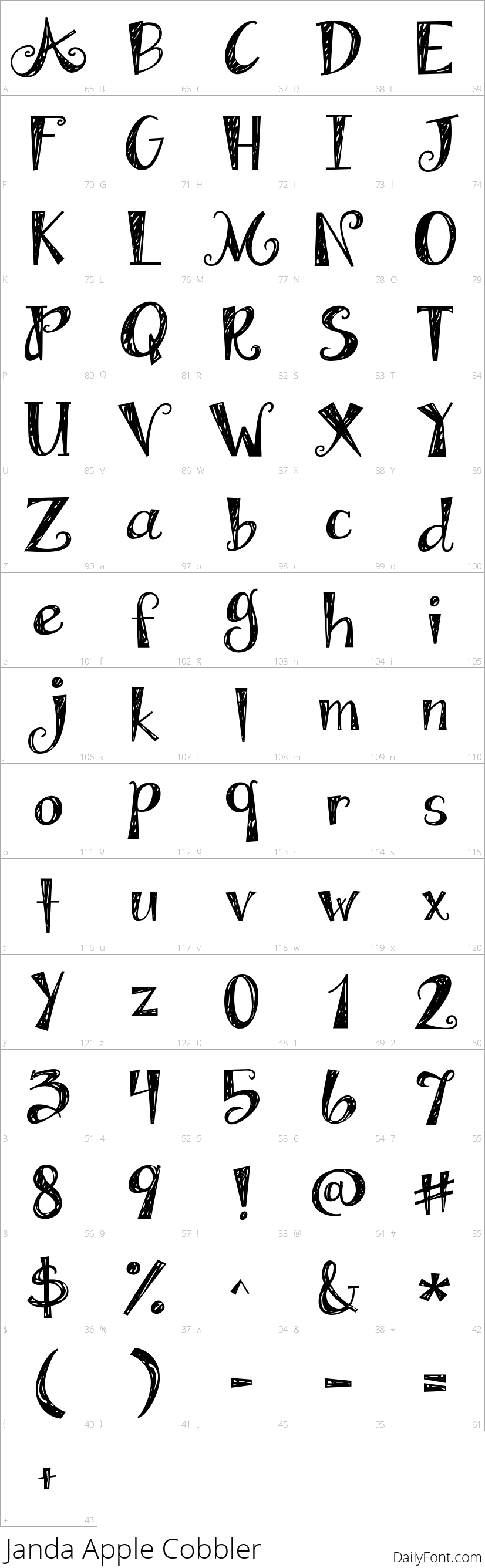
Janda Apple Cobbler by Kimberly Geswein
Whimsical, playful handwritten font with two styles perfect for children's books, educational materials, and kid-friendly branding.